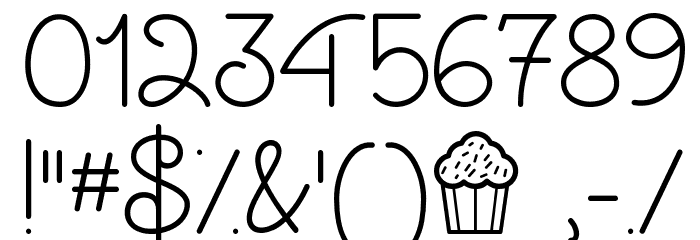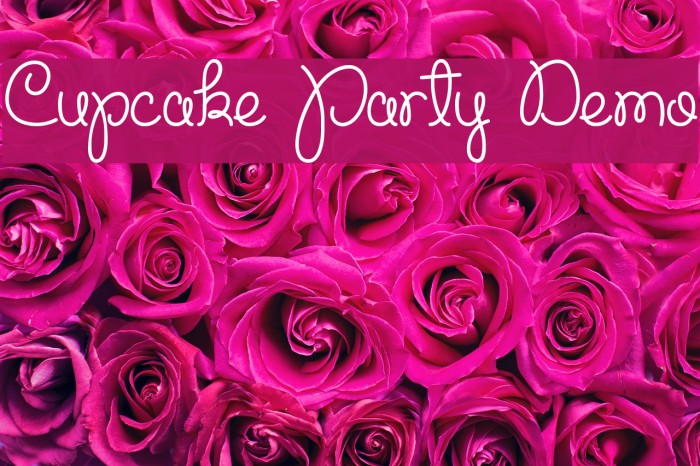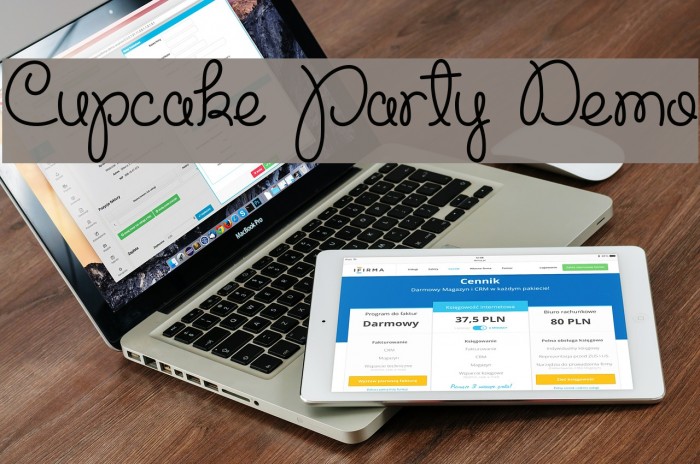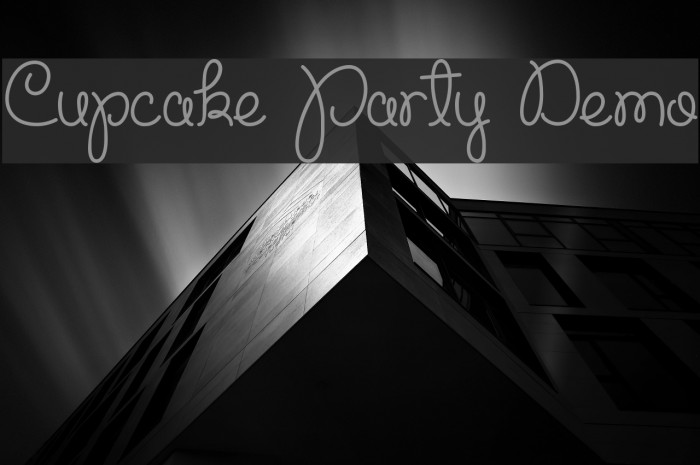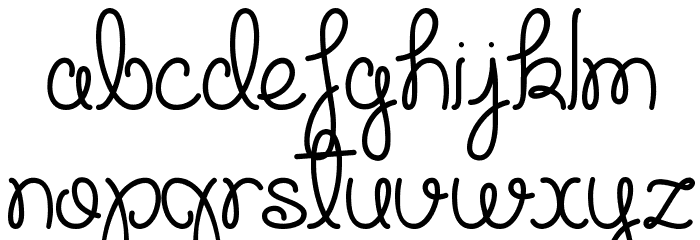
Cupcake Party Demo Font
Cupcake Party Demo Description
This playful and whimsical font features a handwritten style with a touch of elegance. The characters are crafted with smooth, flowing lines that create a sense of movement and joy. Uppercase letters are slightly larger and more decorative, while lowercase letters maintain a consistent, friendly appearance. The numbers are rounded and easy to read, complementing the overall style. Special characters include fun elements like a cupcake, adding a unique charm. This font is perfect for projects that require a lighthearted and inviting feel, such as party invitations, greeting cards, or playful branding.